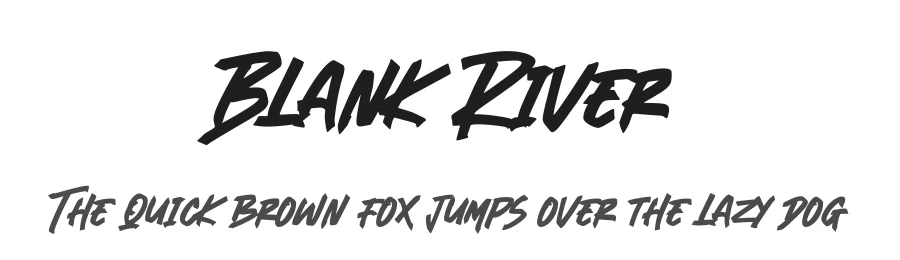
About Buchery Font
Buchery Specifications
| Font Family | Buchery |
| Full Name | Buchery |
| Glyph Count | 218 glyphs |
| Designer | Burhan Afif |
Buchery Font is a script font that shines as a display or heading face. Pair it with a clean sans-serif or serif font for body text β the contrast creates a clear hierarchy while the two styles stay balanced and easy to read.
Buchery Font
by HansCo